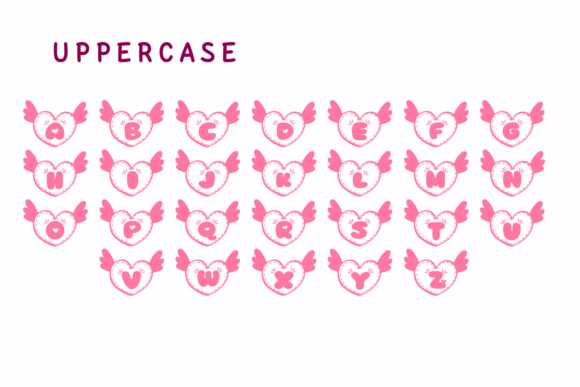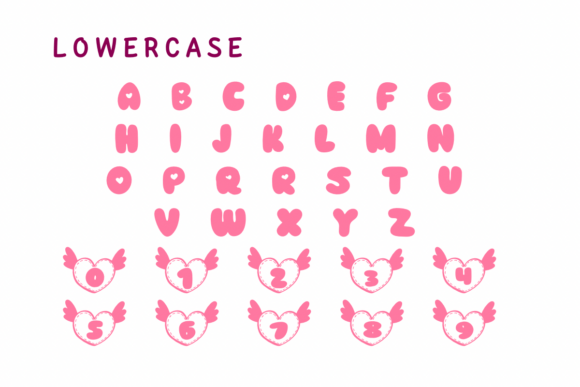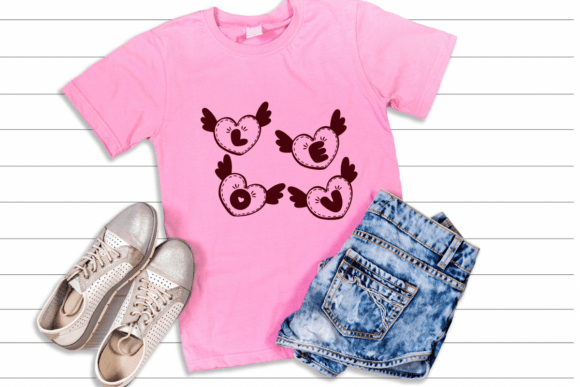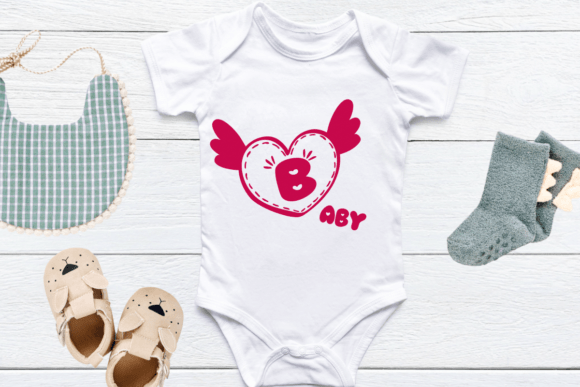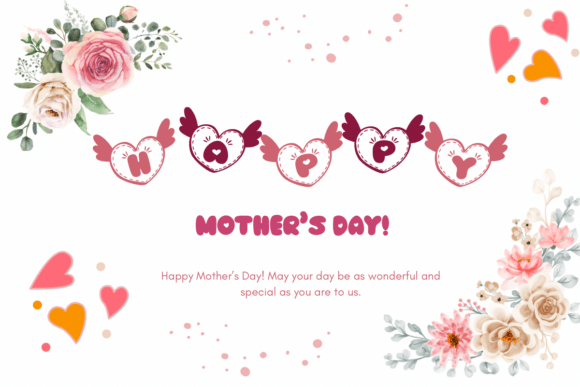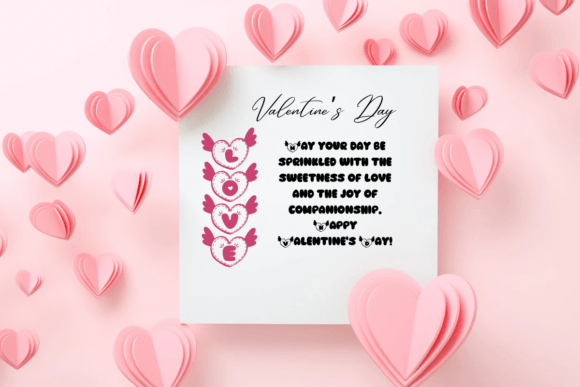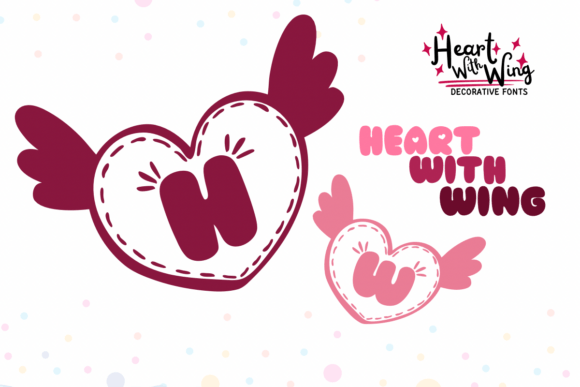
Introducing Heart with Wing Font: A Decorative Delight for Designers and Crafters
Are you on the lookout for a unique and creative font to elevate your designs? Look no further than the Heart with Wing Font! This decorative font is perfect for adding a touch of whimsy and charm to your projects, from personal notes and diaries to professional designs and marketing materials.
What is Heart with Wing Font?
Heart with Wing Font is a beautifully crafted decorative font, designed to add a touch of elegance and playfulness to your text. The font features heart-shaped characters with delicate wings, making it perfect for a variety of creative projects. Whether you’re a designer, crafter, or simply a DIY enthusiast, this font is sure to inspire your next project.
Uses for Heart with Wing Font
So, what can you do with Heart with Wing Font? The possibilities are endless! Here are some ideas to get you started:
- Note-taking and journaling: Add a personal touch to your notes and diary entries with this beautiful font.
- Greeting cards and invitations: Create stunning greeting cards, invitations, and party decor with this eye-catching font.
- Banners and signs: Use Heart with Wing Font to create eye-catching banners and signs for special occasions or events.
- Social media posts: Add a touch of personality to your social media posts and stories with this decorative font.
- Mugs, cards, and shirts: Create custom merchandise, such as mugs, cards, and shirts, with your favorite quotes or messages.
- Stationery and paper crafts: Use Heart with Wing Font to create beautiful stationery, paper crafts, and other DIY projects.
Why Choose Heart with Wing Font?
So, why should you choose Heart with Wing Font for your next project? Here are just a few reasons:
- Unique and eye-catching: This font is sure to grab attention and add a touch of personality to your designs.
- Versatile: Heart with Wing Font can be used for a wide range of projects, from personal to professional.
- High-quality: Heart with Wing Font is a high-quality font, designed to produce crisp and clear text.
Tips for Using Heart with Wing Font
Here are a few tips for getting the most out of Heart with Wing Font:
- Experiment with sizes and colors: Try out different sizes and colors to see what works best for your project.
- Pair with other fonts: Combine Heart with Wing Font with other fonts to create a unique and interesting look.
- Use for emphasis: Use this font to add emphasis to important text, such as headings or titles.
- Have fun!: Don’t be afraid to get creative and try out new things with Heart with Wing Font.
Heart with Wing Font is a beautiful and versatile decorative font, perfect for designers and crafters of all levels. With its unique and eye-catching design, this font is sure to add a touch of personality and charm to your projects. Whether you’re creating personal notes, professional designs, or custom merchandise, Heart with Wing Font is the perfect choice. So why wait? Download Heart with Wing Font today and start creating something amazing!